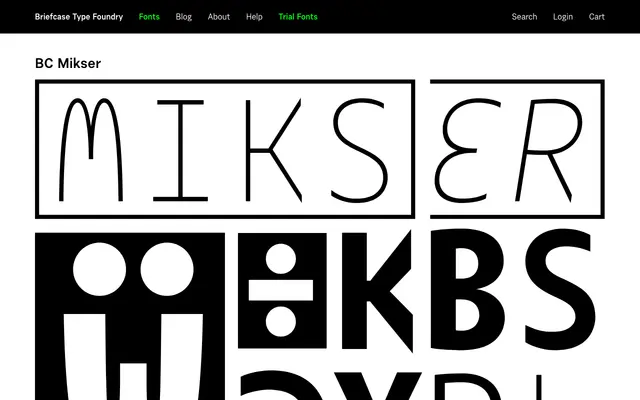
A sans-serif from Briefcase Type Foundry with minimal documentation available on the product page.
BC Mikser is a sans-serif typeface from Briefcase Type Foundry, a Czech foundry with a track record of well-considered text and display faces. The page content scraped was too sparse to determine weights, language coverage or specific stylistic intentions. Further detail should be sought directly from the foundry's site.
The name and foundry context suggest a sans-serif grotesque in the Eastern European tradition, though minimal page content limits firm classification.